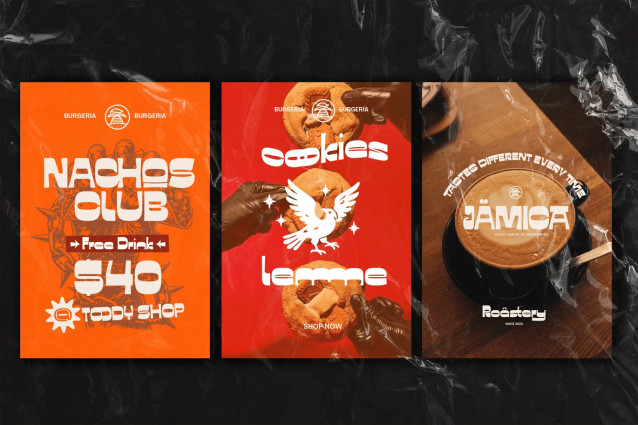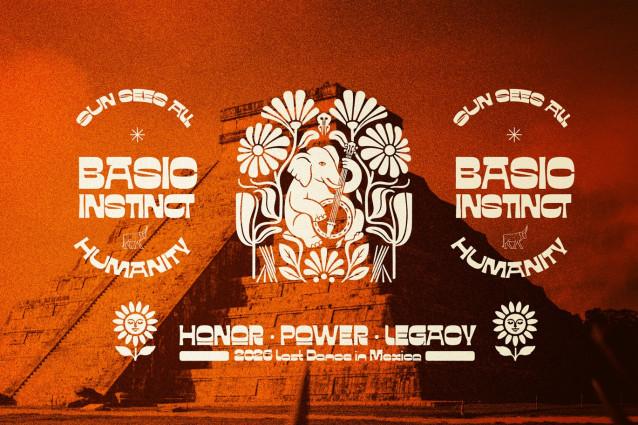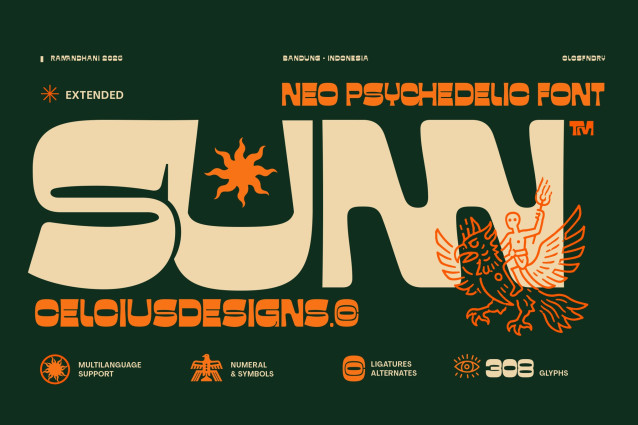
Sunn Font
Sunn Font is a bold, neo-psychedelic display typeface inspired by retrofuturism, desert culture, folk symbolism, and experimental typography. Designed with strong geometric shapes, unique rounded corners, and highly recognizable silhouettes, SUNN offers an expressive visual identity perfect for modern brands and original designs.
This font combines the energy of the psychedelic aesthetic of the 70s with a contemporary experimental design, resulting in a versatile font that is nostalgic, futuristic, and decidedly original.